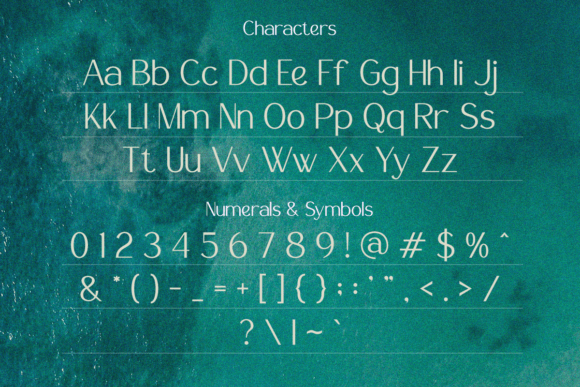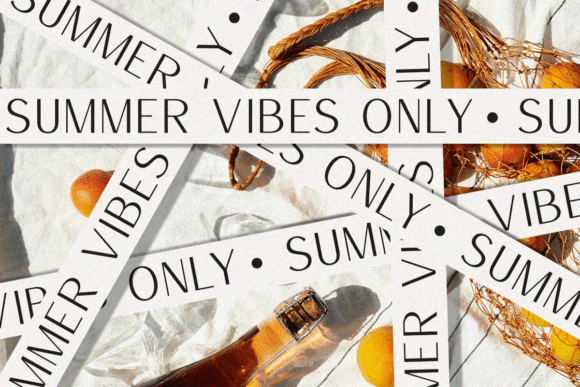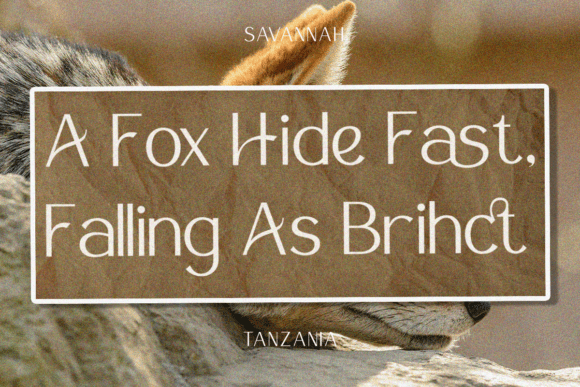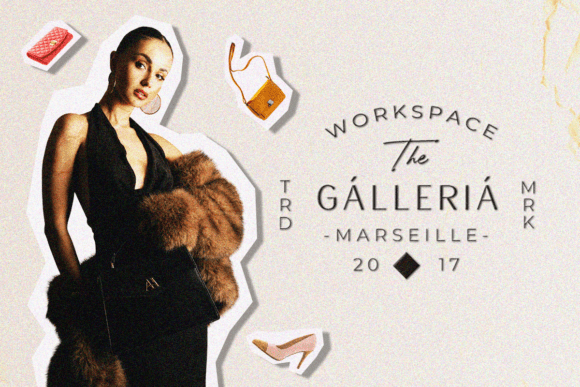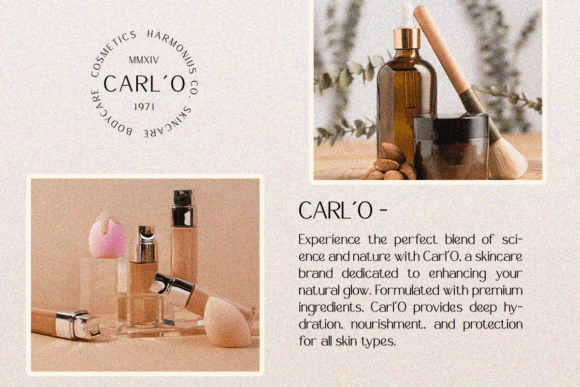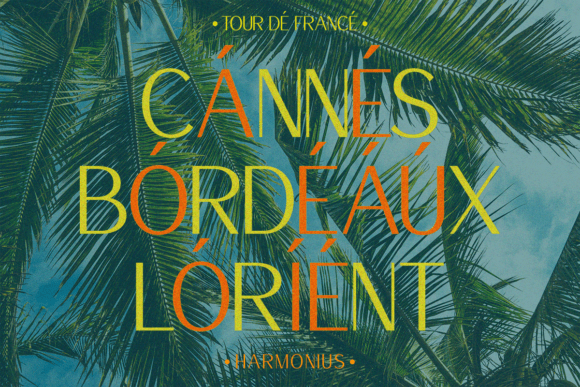
Discover Harmonious: The Modern Sans-Serif Display Font for Creative Equilibrium
In the world of typography, finding the perfect balance between form and function can be a daunting task. However, with Harmonious, a modern sans-serif display font, designers and crafters can now achieve a state of creative equilibrium. This stunning typeface seamlessly blends geometric precision with artistic flair, making it an ideal choice for luxury branding, high-fashion editorials, upscale travel agencies, and serene social media headers.
The Essence of Harmonious
Harmonious is more than just a font – it’s an experience. Its clean, elegant letterforms are characterized by a “zen-minimalist” soul, evoking a sense of serenity and calmness. The unique features of this typeface include:
- Graceful Ligatures: Harmonious boasts beautiful ligatures that add a touch of sophistication to any design.
- Fluid, Arching Connections: The font’s connections mimic the gentle roll of a tide, creating a sense of fluidity and movement.
- Airy Weight: Harmonious has a light, airy weight that gives it a sense of elegance and refinement.
- Sophisticated Rhythm: The font’s rhythm is carefully crafted to create a sense of harmony and balance.
Applications for Harmonious
With its unique blend of geometric precision and artistic flair, Harmonious is perfect for a variety of applications, including:
- Luxury Wellness Branding: Create a serene and sophisticated brand identity with Harmonious.
- Independent High-Fashion Editorials: Add a touch of elegance and refinement to your fashion editorials with this stunning font.
- Upscale Travel Agency Identities: Transport your clients to a world of luxury and sophistication with Harmonious.
- Serene “Lifestyle-Aesthetic” Social Media Headers: Elevate your social media presence with Harmonious’ clean and elegant design.
Why Choose Harmonious?
In a world where typography plays a crucial role in branding and design, Harmonious stands out from the crowd. Here are just a few reasons why designers and crafters should choose Harmonious:
- Unique and Versatile: Harmonious is a one-of-a-kind font that can be used in a variety of applications.
- Elegant and Refined: This font exudes elegance and refinement, making it perfect for luxury branding and high-end designs.
- Easy to Read: Despite its elegant design, Harmonious is easy to read, making it perfect for body text and headlines.
Tips for Using Harmonious
To get the most out of Harmonious, here are a few tips for designers and crafters:
- Experiment with Ligatures: Take advantage of Harmonious’ beautiful ligatures to add a touch of sophistication to your design.
- Play with Font Sizes: Harmonious is versatile and can be used in a variety of font sizes, from large headlines to smaller body text.
- Pair with Other Fonts: Harmonious pairs well with other fonts, making it easy to create a unique and harmonious design.
In conclusion, Harmonious is a modern sans-serif display font that is sure to revolutionize the world of typography. With its unique blend of geometric precision and artistic flair, this font is perfect for designers and crafters looking to achieve a state of creative equilibrium. Whether you’re working on a luxury branding project, a high-fashion editorial, or a serene social media header, Harmonious is the perfect choice.